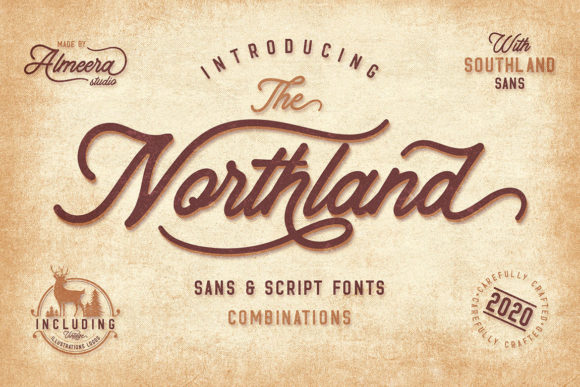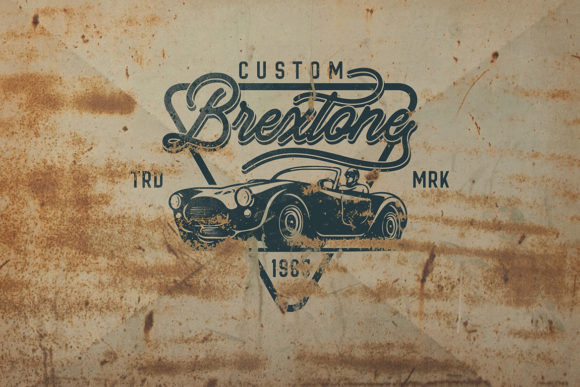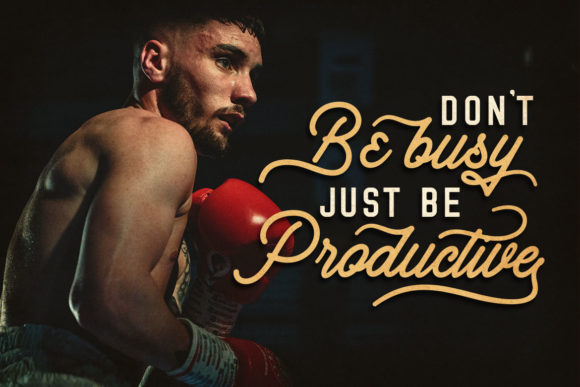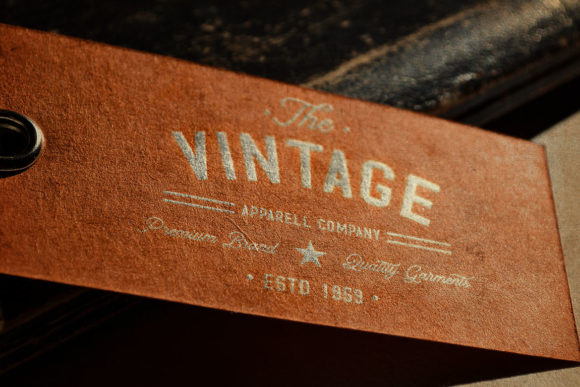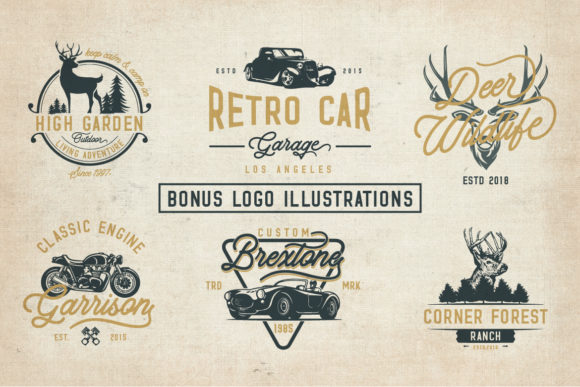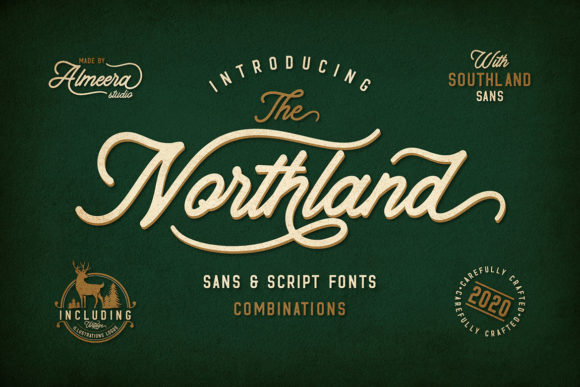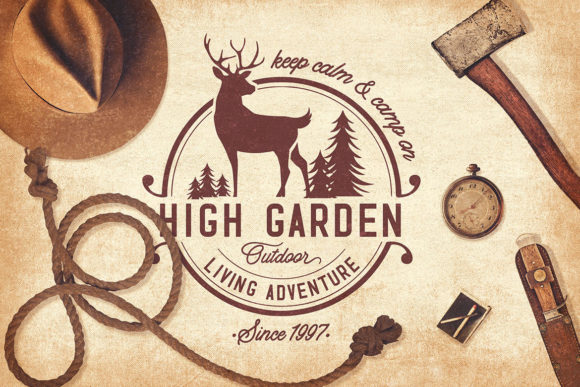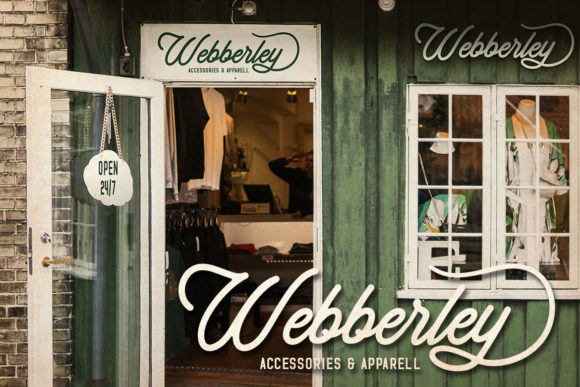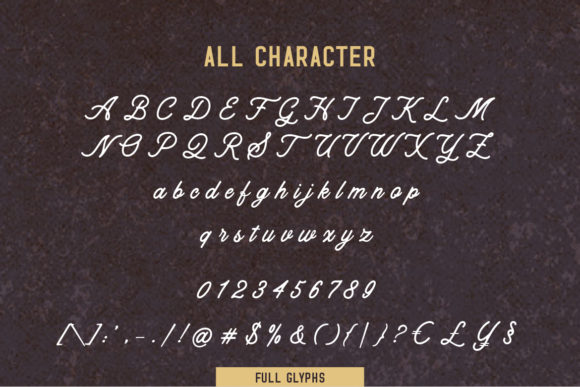
The Northland Font
About The Northland Font
The Northland feels playfully nostalgic and delivers an incredible vintage aesthetic. Use this handwritten font to add that special retro touch to any design idea you can think of!